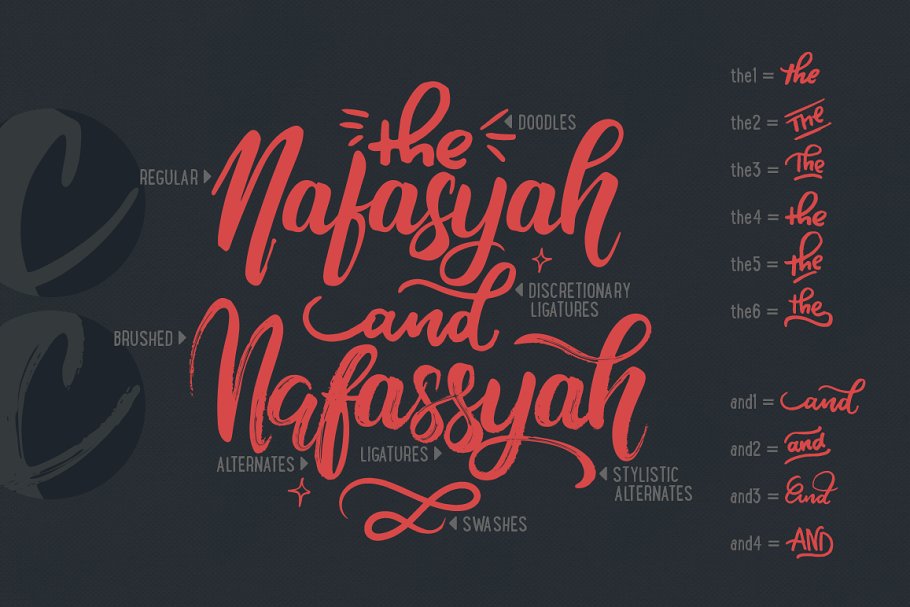
About the Nafasyah Brushed Duo Font
Let’s welcoming Nafasyah!My very first font ever released in the marketplace, Opening Store Sale was Closed, Thanks for 10 first buyers! Now the price is back to normal, UPDATEDNafasyah Sans Version Now Available ;)A complete set of hand-lettered font that gives a personal touch to your awesome words and beautiful artworks, Nafasyah updated version comes with regular, brushed, sans and extra (swashes + doodles) version
A standard set including uppercase, lowercase, figures and punctuation characters, Also with special features like alternates, ligatures, discretionary ligatures, and stylistic alternates, Combined with Nafasyah Extra, you will get swashes and doodles to decorate your work
With Discretionary ligatures, you only need to add numeral character in the end of the word and and the, For example, you can type and1, and2, and3, or and4 to display and ligatures, Or just type the1, the2, the3, the4, the5, or the6 to display the ligatures